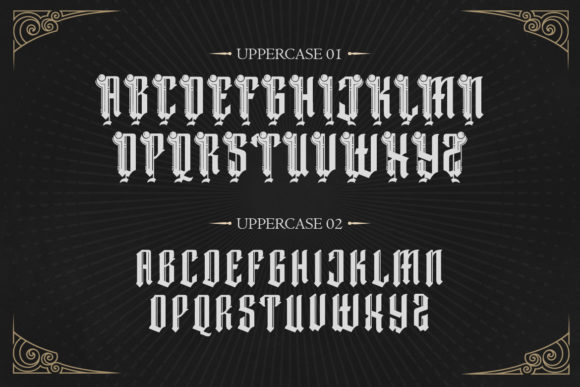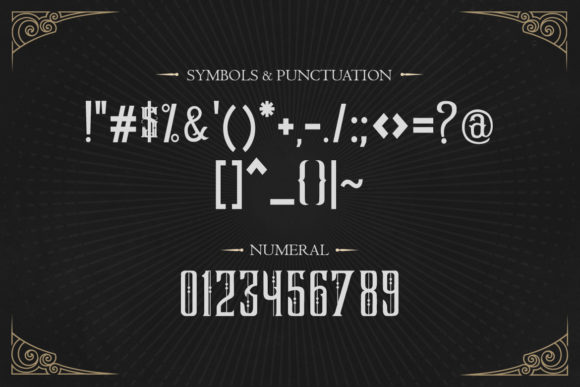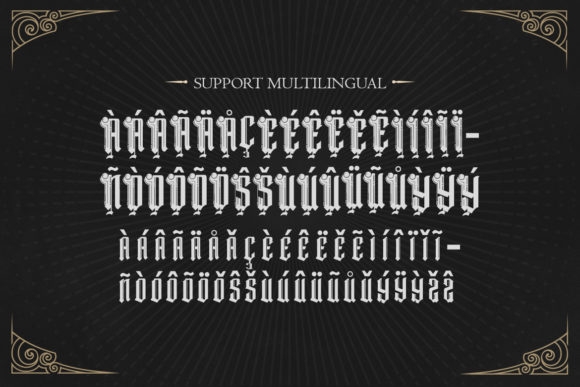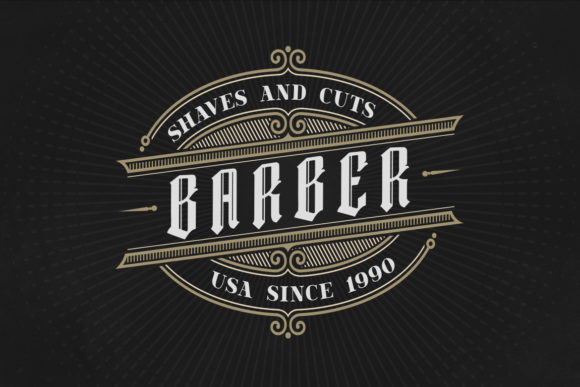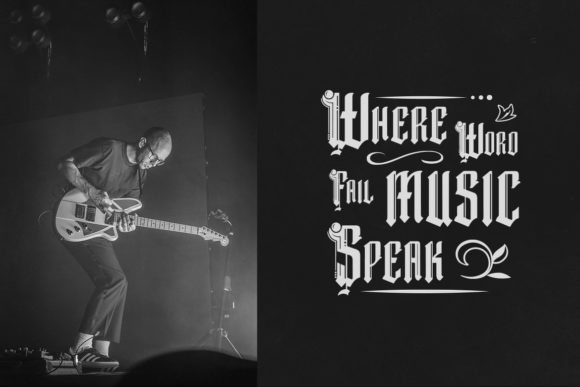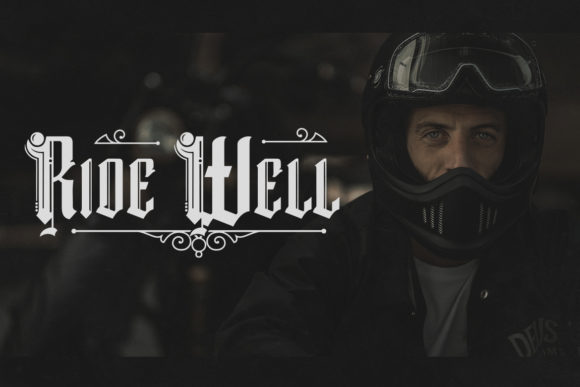
Unleash the Power of Dark Magic: A Bold Gothic-Styled Blackletter Font
In the world of design, typography plays a crucial role in conveying the tone and aesthetic of a project. For designers and crafters looking to add a touch of mystery, elegance, and power to their work, the Dark Magic font is an exceptional choice. This bold, gothic-styled blackletter font is designed to make a statement, imposing its presence in any design and lending a classic, timeless feel that is hard to achieve with more modern fonts.
The Essence of Dark Magic Font
Dark Magic is not just a font; it’s an experience. It’s a journey back to the medieval times, where Gothic architecture and blackletter manuscripts were the epitome of art and culture. This font embodies the essence of that era, bringing forth a sense of mystique and grandeur that is perfect for designs that require a strong, classic touch.
Its bold and imposing structure makes it stand out in any project. Whether you’re working on a logo, a poster, a book cover, or any other design that needs to capture attention and evoke a certain level of sophistication, Dark Magic is incredibly adept at delivering results. Its blackletter style, characterized by dramatic flourishes and intricate details, adds an element of elegance and drama that can elevate your designs to new heights.
Versatility and Application
One of the key benefits of the Dark Magic font is its versatility. While it’s inherently bold and commanding, it can be used in a variety of contexts, from the spooky and mystical to the elegant and formal. This adaptability makes it a valuable asset for designers who work on a wide range of projects or for crafters who like to experiment with different themes and styles.
For instance, in the world of crafting, whether you’re designing invitations for a themed party, creating labels for homemade products, or crafting stories and comics, Dark Magic can add that special touch that makes your work stand out. Its classic appeal ensures that it never goes out of style, allowing your designs to remain relevant and captivating for years to come.
Why Choose Dark Magic?
So, why should you choose Dark Magic over other fonts available in the market? The answer lies in its unique blend of boldness, elegance, and classic appeal. Here are a few reasons why Dark Magic stands out:
• Imposing Presence: It commands attention and makes a statement, perfect for designs that need to stand out.
• Classic Design: It brings a touch of timeless elegance, suitable for projects that require a sophisticated look.
• Versatility: It can be used in a variety of projects, from formal to casual, and from spooky to elegant.
• Easy Integration: It can be confidently added to your projects without worrying about compatibility or readability issues.
Dark Magic is more than just a font; it’s a design statement. It’s perfect for designers and crafters who are looking to add a bold, gothic-styled blackletter touch to their projects. With its imposing presence, classic design, and versatility, Dark Magic is sure to exceed your expectations. Whether you’re working on a professional project or a personal crafting endeavor, adding Dark Magic to your toolkit can open up new avenues of creativity and expression.